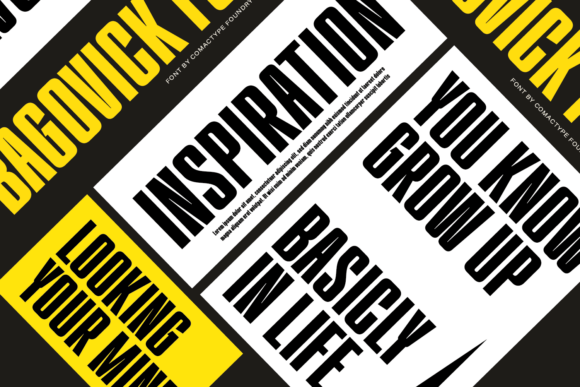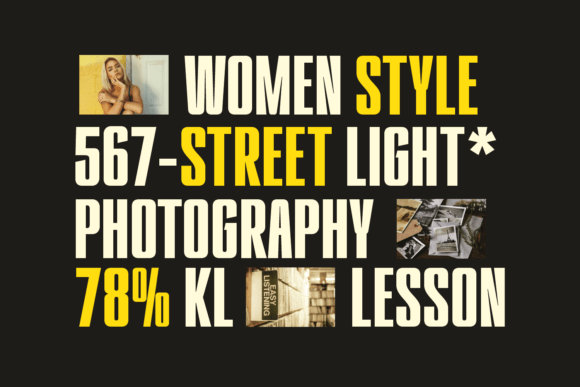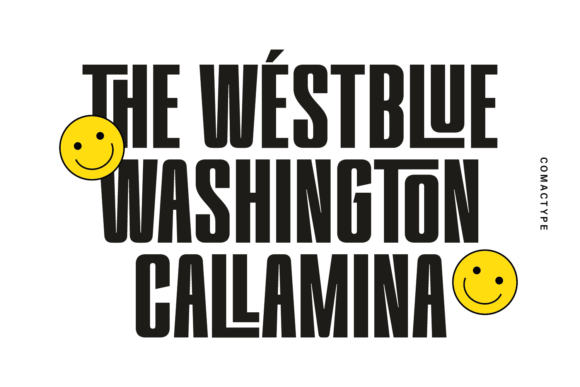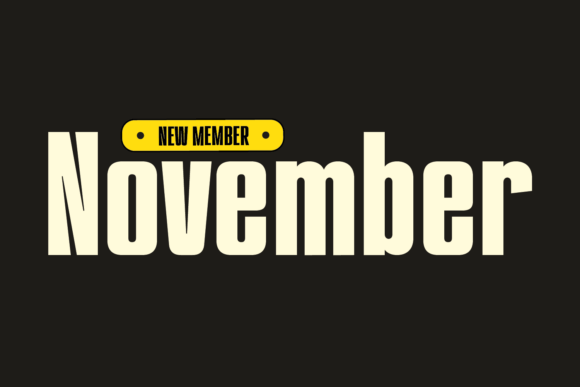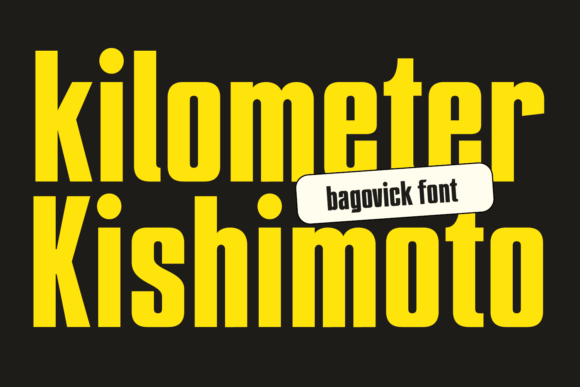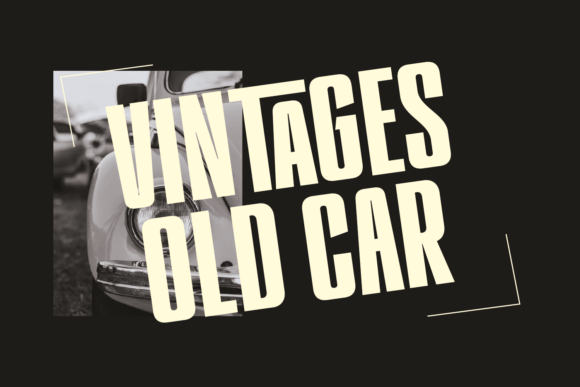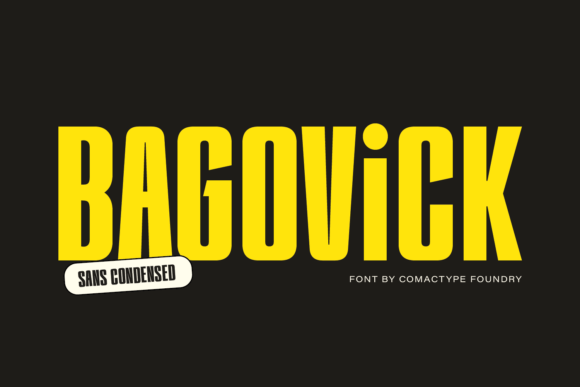
Introducing Bagovick Font: The Epitome of Modern Design
In the realm of typography, a font can make or break the visual identity of a design project. For designers and crafters seeking a typeface that exudes boldness, modernity, and expressiveness, Bagovick Font is an exceptional choice. This condensed sans-serif font is meticulously crafted to convey strength and elegance, making it perfect for a wide range of applications, from branding and logos to headlines, posters, and more.
Design Characteristics of Bagovick Font
Bagovick Font is distinguished by its tall and narrow letterforms, which not only give it a unique appearance but also make it highly versatile. The font features thick strokes that contribute to its bold and impactful look. Additionally, the slightly rounded corners add a touch of softness, balancing the overall design and preventing it from appearing too harsh. This blend of boldness and elegance ensures that Bagovick stands out in any design.
Unique Features: Ligatures and Visual Consistency
One of the standout features of Bagovick Font is its unique ligatures. These special character combinations enhance the typographic character of the font, providing it with a distinctive personality that can elevate any design project. Moreover, Bagovick boasts high visual consistency, which is crucial for its adaptability across various media. Whether it’s used in digital platforms, print materials, or any other medium, Bagovick maintains its striking and professional appearance without losing its distinctive identity.
Applications of Bagovick Font
Given its bold, modern, and expressive design, Bagovick Font is incredibly versatile and can be used in a multitude of design projects. Here are some of the ideal applications for Bagovick:
- Branding and Logos: The font’s unique and impactful design makes it perfect for creating memorable brand identities and logos that stand out.
- Headlines and Posters: Bagovick’s bold nature ensures that headlines and posters grab attention, making it an excellent choice for advertising and promotional materials.
- Digital and Print Media: Its high visual consistency and adaptability make Bagovick suitable for use in both digital platforms (such as websites and social media graphics) and print materials (like brochures, flyers, and business cards).
Why Choose Bagovick Font?
For designers and crafters looking for a font that combines modernity with expressiveness, Bagovick Font offers several compelling reasons to be the top choice:
- Unique Design: Its condensed sans-serif design with unique ligatures sets it apart from more traditional typefaces.
- Versatility: Suitable for a wide range of projects, from branding to advertising materials.
- Impact and Elegance: Achieves a perfect balance between making a bold statement and maintaining an elegant aesthetic.
- High Adaptability: Maintains its visual appeal and distinctive identity across various media.
Bagovick Font is a powerful tool for designers and crafters aiming to infuse their projects with a bold, modern, and professional look. Its unique design characteristics, including tall and narrow letterforms, thick strokes, and slightly rounded corners, along with its unique ligatures and high visual consistency, make it an exceptional choice for a multitude of applications. Whether you’re working on branding, headlines, posters, or any design project that demands impact and elegance, Bagovick Font is sure to exceed your expectations and elevate your designs to new heights.